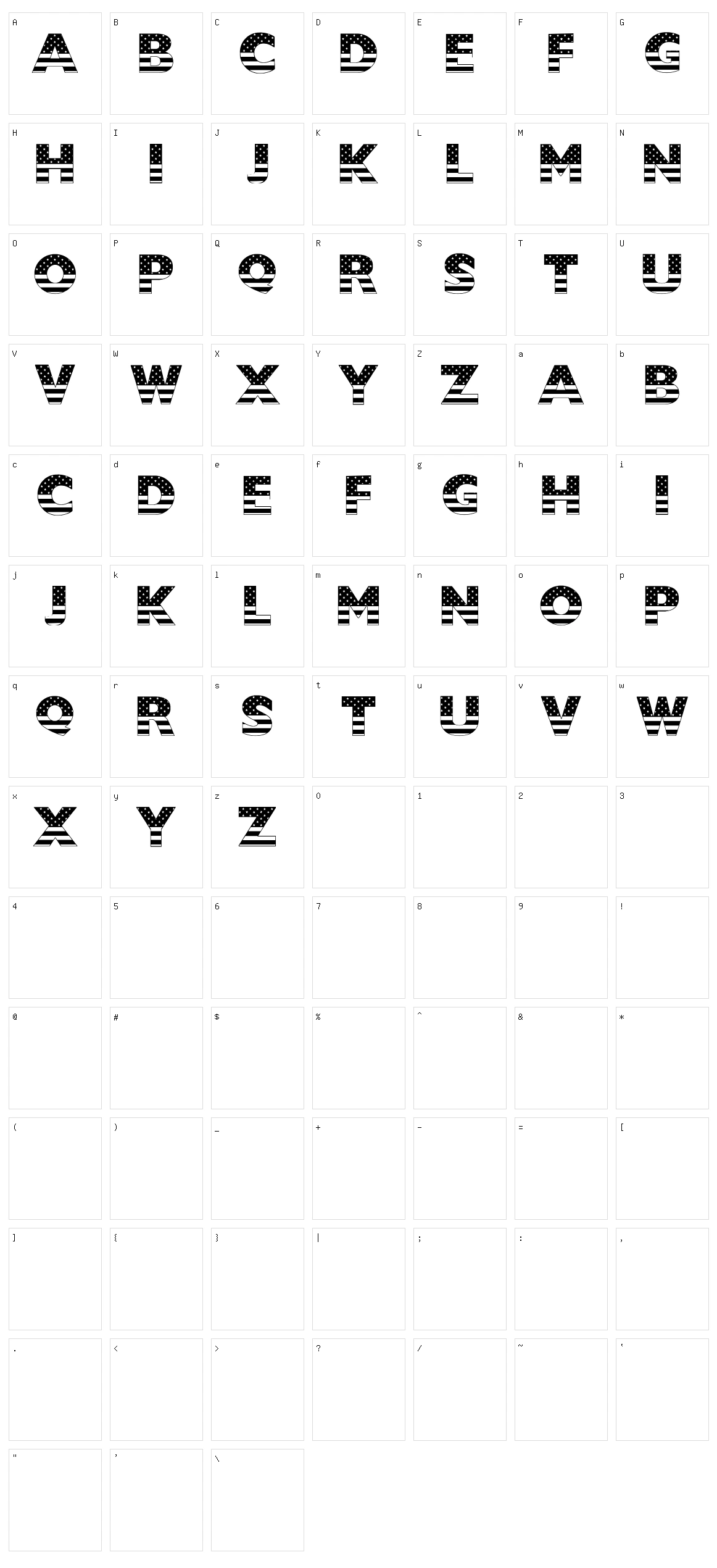
I found an existing font named USFlag, so I've renamed (internally and
externally) my new font to
USStarsNStripes to avoid conflicts.
In Office Depot today, I found an irresistable bargain ln the clearance
table for only 75¢. A jingoistic Cosmi package labeled "God Bless
America" - a collection of screen savers, clipart, music, images, etc.
Buried in the clipart is a file "Flag Alphabet", with two graphic red
white and blue starts and stripes 26-character alphabets - one flat and
one slightly rounded.
I looked at my collection of 80 some-odd stars and stripes fonts, and
was very surprised that I didn't see one like this one. So I took out my
trusty Scanfont and Fontlab and here you go!
It is spaced and kerned extremely tightly in an attempt to emphasize the
horizontal stripes. The lower case duplicates the upper, but takes no
additional glyph space, since they are all "referrals" (I'm sure there's
a proper term for it).